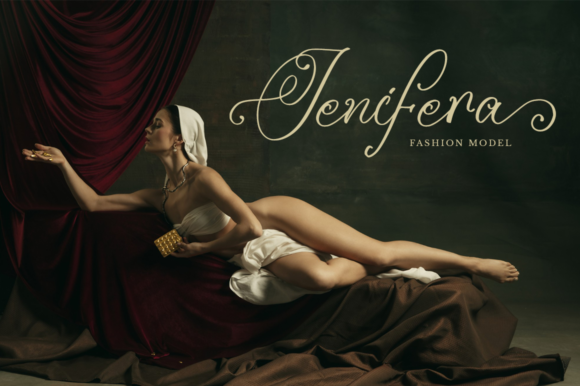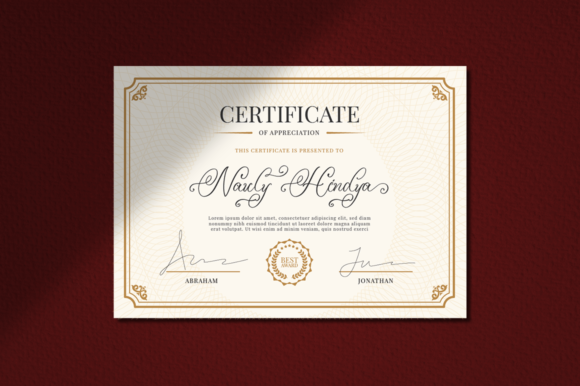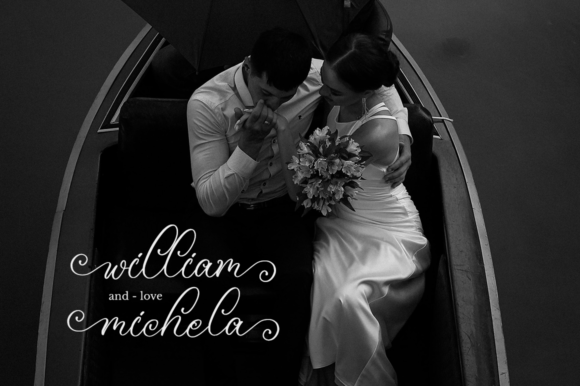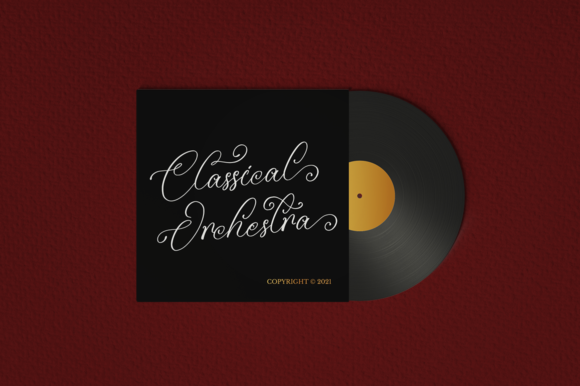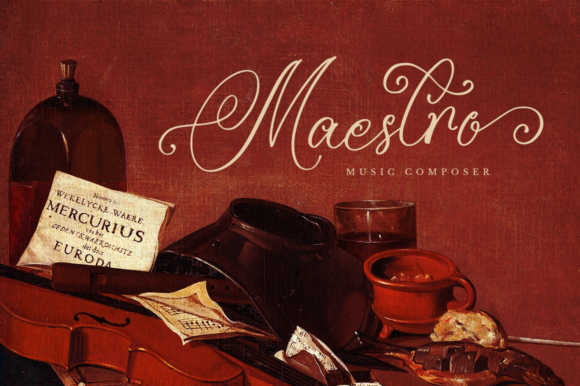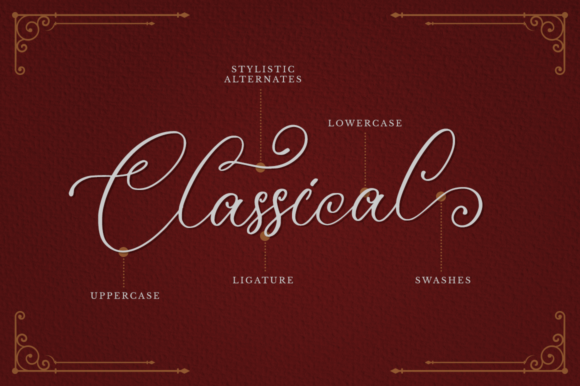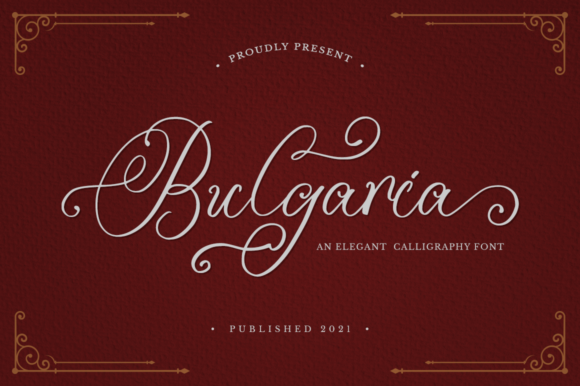
Bulgaria Font: Elevate Your Designs with Elegance and Sophistication
In the world of typography, fonts play a crucial role in conveying the tone and personality of a design. For designers and crafters seeking to add a touch of luxury and sophistication to their projects, the Bulgaria Font is an excellent choice. This lovely and delicate script font is designed to exude elegance and class, making it perfect for a wide range of design applications.
What Makes Bulgaria Font Stand Out?
The Bulgaria Font is a stunning script font that boasts a unique and refined aesthetic. Its delicate strokes and elegant letterforms make it an ideal choice for designers who want to add a touch of sophistication to their designs. Whether you’re working on a branding project, packaging design, or digital artwork, this font is sure to impress.
One of the standout features of the Bulgaria Font is its PUA (Private Use Area) encoding. This means that users can access a wide range of glyphs and ligatures with ease, allowing for greater creative flexibility and customization options. With PUA encoding, designers can effortlessly navigate the font’s extensive character set, including swashes, alternates, and ornaments, to create truly unique and eye-catching designs.
Key Features of Bulgaria Font
- Elegant and Delicate Design: The Bulgaria Font features a beautiful, script-style design that’s perfect for creating sophisticated and luxurious designs.
- PUA Encoded: With PUA encoding, users can easily access a wide range of glyphs and ligatures, making it easy to customize and refine their designs.
- Extensive Character Set: The font includes a comprehensive character set, including swashes, alternates, and ornaments, allowing designers to add unique touches to their designs.
- High-Quality Typography: The Bulgaria Font is designed with high-quality typography in mind, ensuring that your designs look professional and polished.
Use Cases for Bulgaria Font
The Bulgaria Font is versatile and can be used in a variety of design applications, including:
- Branding and Logo Design: The font’s elegant and sophisticated design makes it perfect for creating high-end brand identities and logos.
- Packaging Design: Add a touch of luxury to your packaging designs with the Bulgaria Font, ideal for premium products and high-end brands.
- Digital Artwork: The font’s delicate and refined aesthetic makes it suitable for digital artwork, including illustrations, graphics, and more.
- Stationery and Invitations: Use the Bulgaria Font to create beautiful and elegant stationery, invitations, and greeting cards.
Tips for Using Bulgaria Font Effectively
To get the most out of the Bulgaria Font, consider the following tips:
- Pair with Neutral Backgrounds: The Bulgaria Font looks stunning on neutral backgrounds, allowing its elegant design to take center stage.
- Experiment with Ligatures: Take advantage of the font’s PUA encoding to experiment with different ligatures and glyphs, adding unique touches to your designs.
- Use for Headings and Titles: The font’s elegant design makes it perfect for headings and titles, adding a touch of sophistication to your designs.
In conclusion, the Bulgaria Font is an excellent choice for designers and crafters seeking to add a touch of elegance and sophistication to their designs. With its delicate and refined aesthetic, PUA encoding, and extensive character set, this font is sure to elevate your designs and leave a lasting impression.